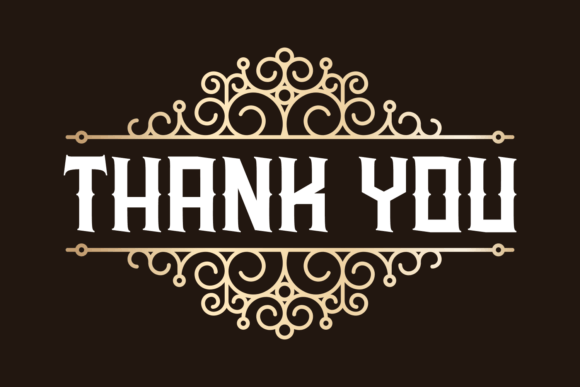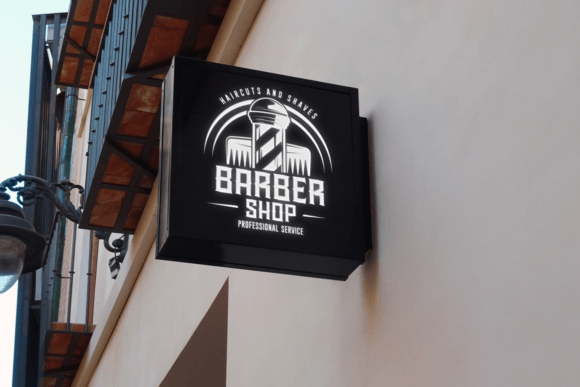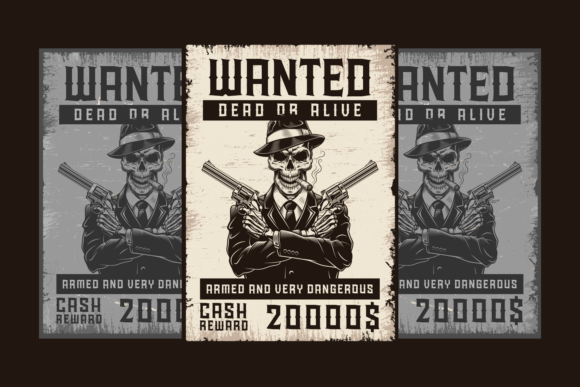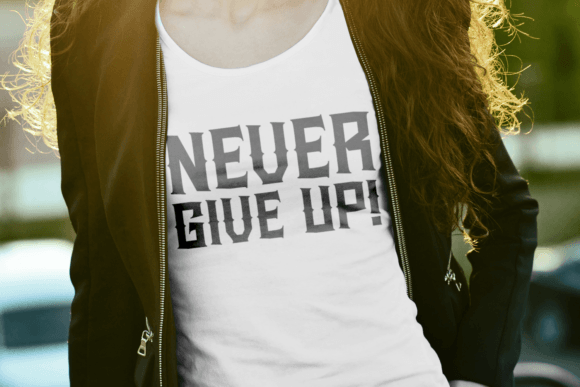
Unleash the Drama of the Past: Introducing Black Rolings Font
As designers, we’ve all had those moments when we stumble upon a font that transports us to a different era. For me, it was a late-night typography exploration session where I discovered the Black Rolings Font. Its bold, striking lines immediately caught my attention, and I knew I had to learn more about it.
Black Rolings Font is a classic blackletter font that exudes a sense of elegance and drama. Its thick lines and sharp edges give it a timeless, Gothic feel that’s perfect for headlines, posters, or vintage designs. Whether you’re looking to add a touch of sophistication to your next project or create a bold statement, Black Rolings Font is the perfect choice.
As a valuable addition to any designer’s toolkit, the Black Rolings Font offers endless possibilities for creative expression. Its simplicity and striking style make it an ideal choice for designers who want to add a unique touch to their work.
Black Rollings Font Key Features
- Unique Characteristics: The Black Rollings font features a unique blend of modern and vintage elements, with bold lines, geometric shapes, and a distressed texture that adds a touch of elegance and sophistication.
Designer Review: Black Rolings Font
I recently had the chance to work with the Black Rolings font, and I must say, it’s a decent addition to any designer’s toolkit. ✨ One thing that stands out is its unique blend of modern and vintage elements. The bold, sans-serif lines give it a contemporary feel, while the subtle flair at the ends of the letters adds a touch of elegance.
Another aspect that I appreciate is the wide range of weights available, from light to black, which provides designers with ample options for creating visually appealing text. ✨ Additionally, the font is highly legible, making it suitable for a variety of applications, including body text and headings.
- ⚠️ Limited language support, which may be a concern for designers working with non-Latin scripts.
- ⚠️ The font may not be ideal for very small text sizes, as the lines can become quite thin and may lose legibility.
Overall, Black Rolings is a solid choice for designers looking for a versatile, modern font. While it may have some limitations, its unique style and wide range of weights make it a great addition to any project.
Use the Black Rollings font for headings and titles to add a touch of elegance and sophistication.
Pair it with a clean and simple background to make it stand out.